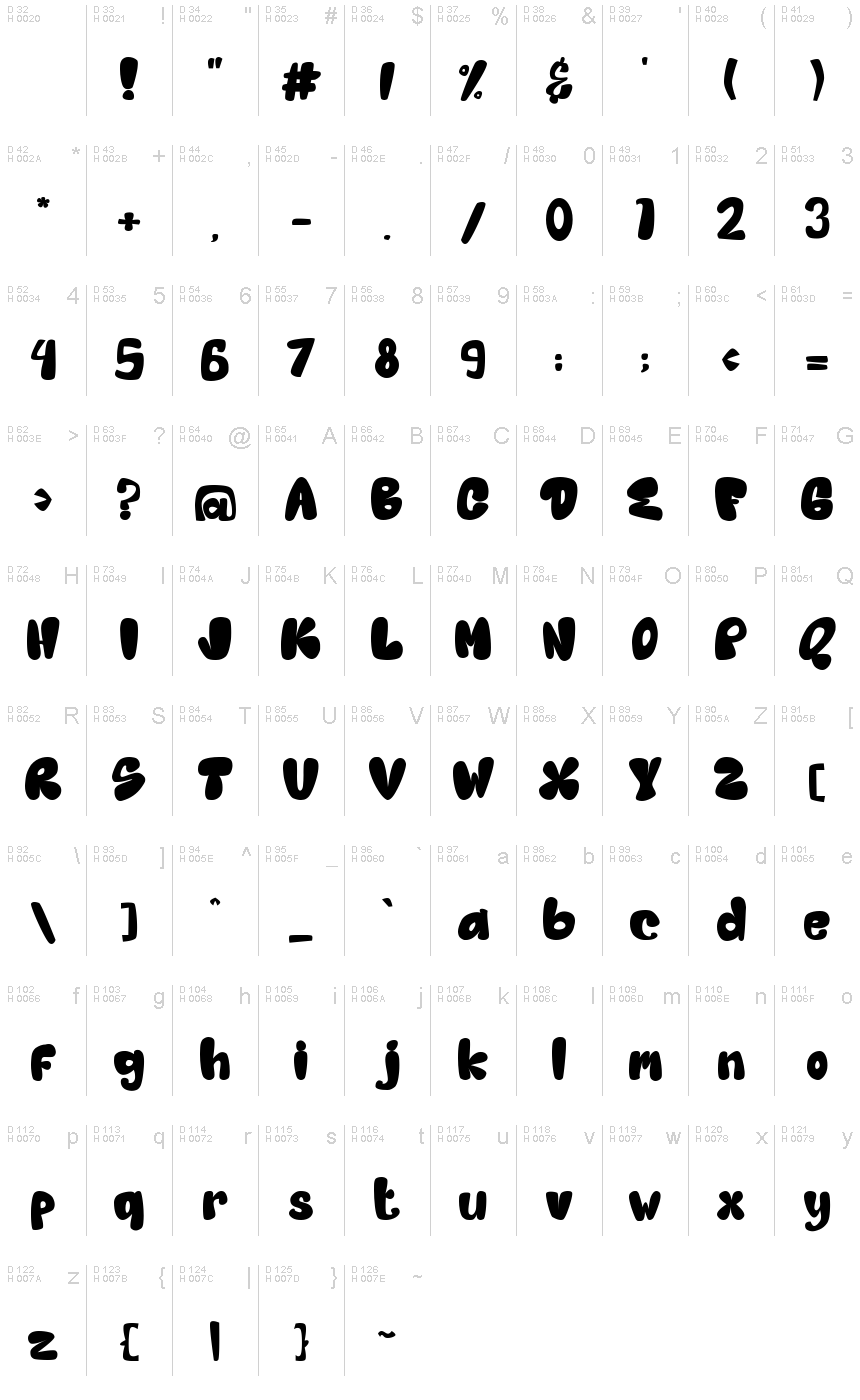
Yellow Rocks
Yellow Rocks bursts onto the scene with a playful and energetic flair, courtesy of Green Adventure Studio. Its cartoon style exudes a sense of fun and creativity, perfect for capturing the imagination. Bold and unapologetically whimsical, this display font dances with an infectious rhythm that seems to leap off the page.
Ideal for projects that demand attention with a touch of humor, Yellow Rocks is well-suited for children's books, animated movie titles, or any design space where a lively personality is essential. It promises to inject vibrancy into logos, packaging, and advertising campaigns that aim to stand out in a sea of sameness. With Yellow Rocks, your message won't just speak; it'll sing!